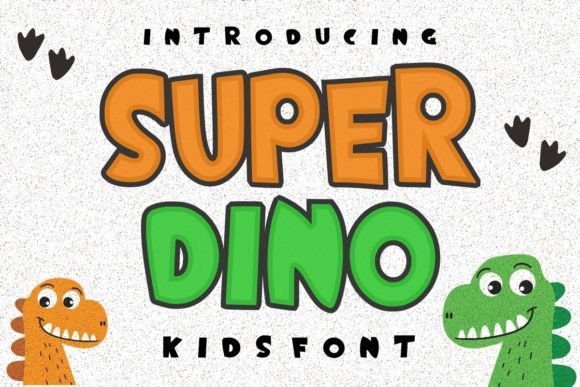
In a world teeming with digital monotony, where fonts blend together like raindrops in a storm, we present to you Super Dino Font - a beacon of distinction, a font that breathes life into your creative endeavors. Crafted with meticulous care by Infinity Art Studio, Super Dino Font bursts onto the scene as a playful, bold, and effortlessly readable display font poised to elevate your designs to dizzying heights.
Its playful nature, reminiscent of a cheerful child's laughter, is sure to capture hearts and spread joy wherever it's used. Its bold strokes, like the confident strides of a fearless explorer, command attention and demand to be seen. And its effortless readability, akin to a soothing lullaby, ensures that your message is conveyed with crystal clarity.
Picture this: a captivating poster adorned with Super Dino's playful charm, drawing passersby like moths to a flame. A vibrant website, pulsating with energy, thanks to Super Dino's bold and confident presence. A heartfelt greeting card, infused with warmth and sincerity, penned in Super Dino's easy-to-read script. The possibilities are endless, bound only by the limits of your imagination.
Super Dino Font is not merely a font; it's an experience. It's a journey into a realm of boundless creativity, where your ideas take flight and soar beyond the ordinary. So, dive in, embrace the magic of Super Dino, and let your designs dance with delight. Whether you're creating digital masterpieces, crafting handmade wonders, or simply adding a touch of whimsy to your everyday communications, Super Dino Font is your steadfast companion, ready to transform the mundane into the extraordinary.